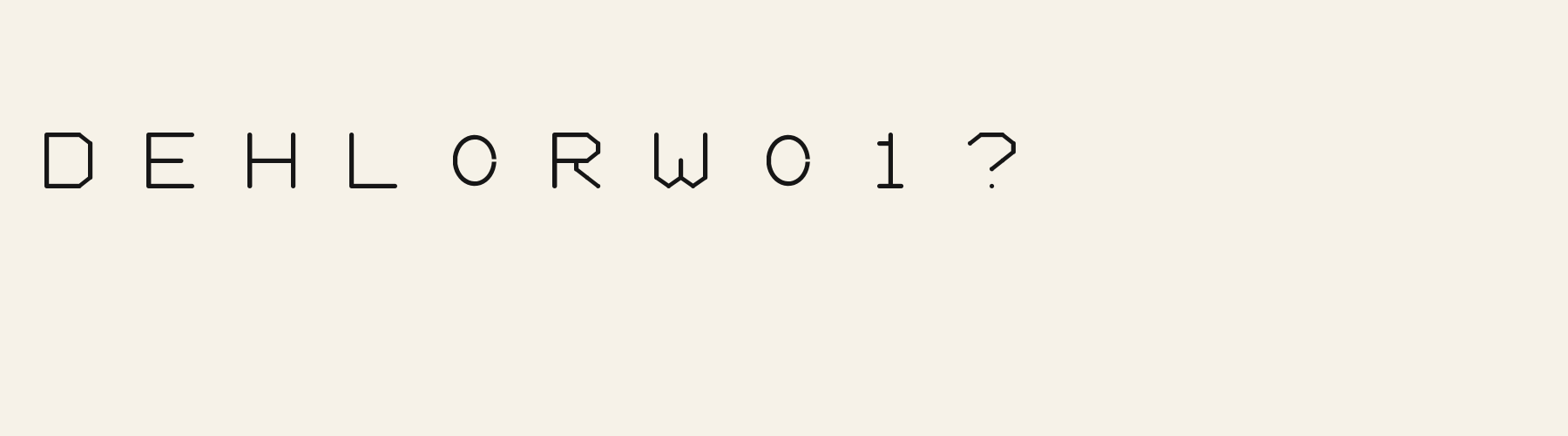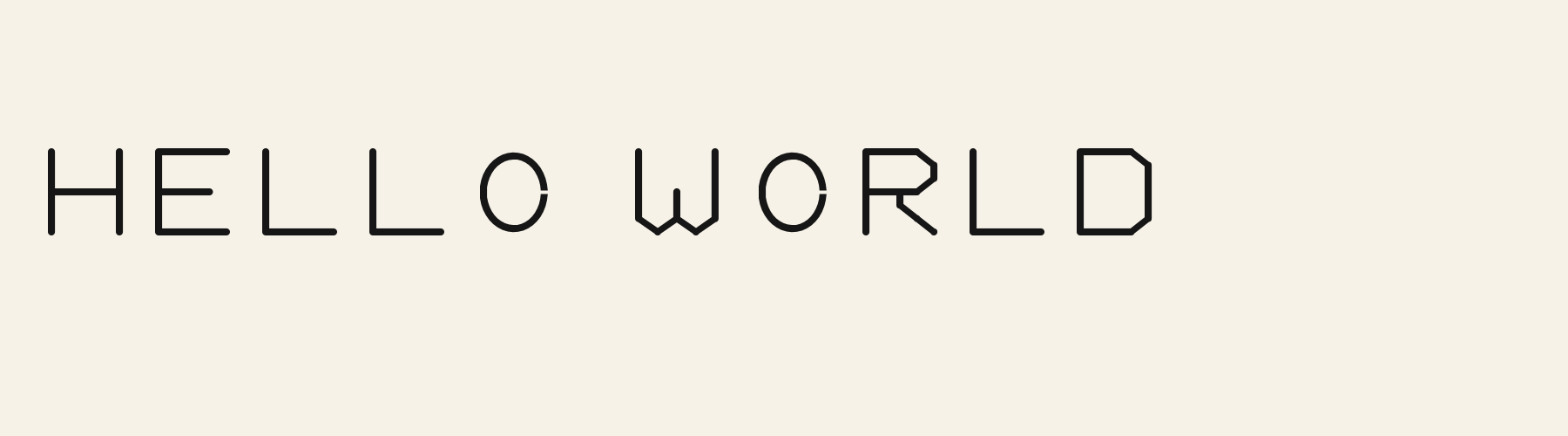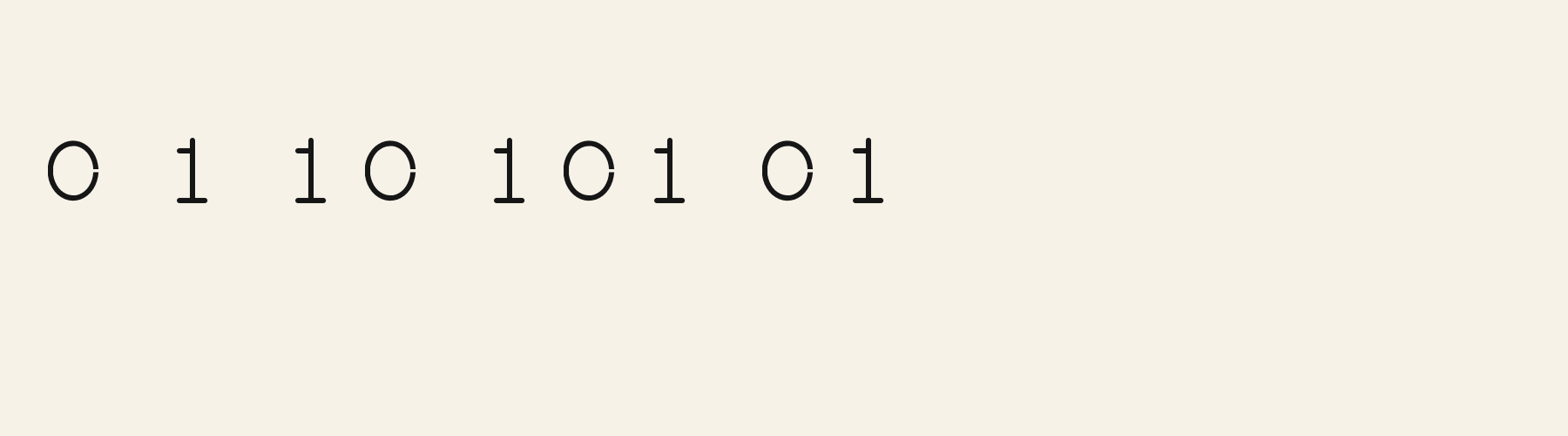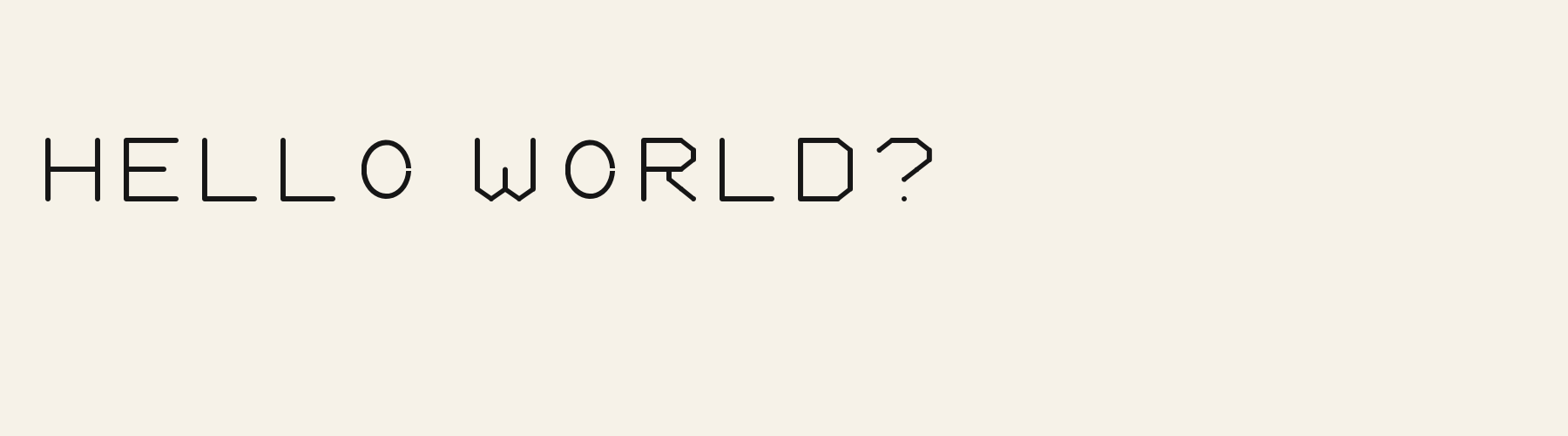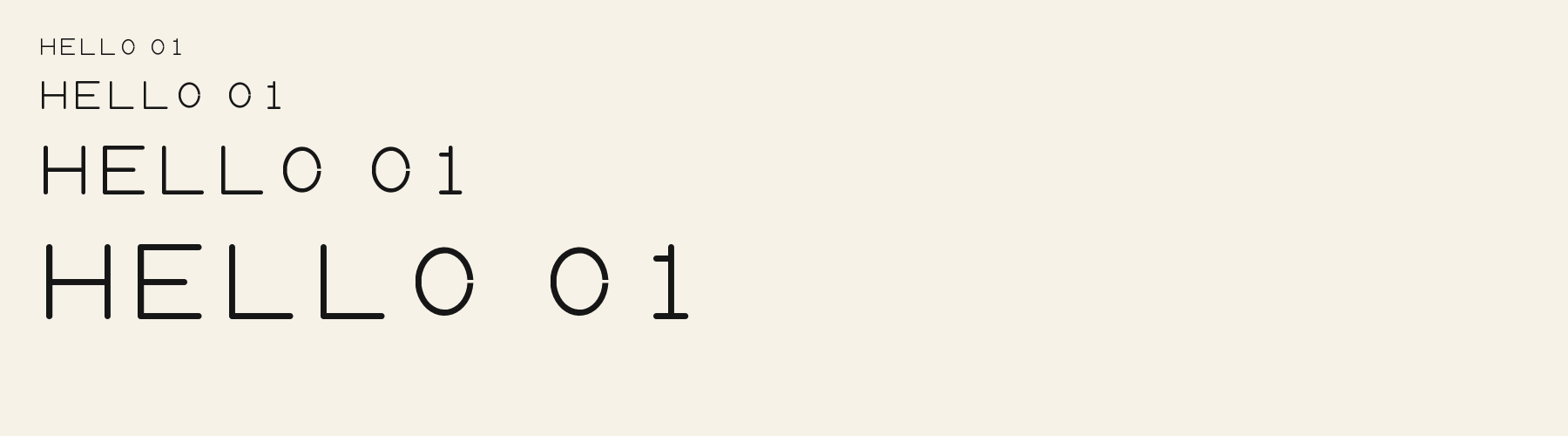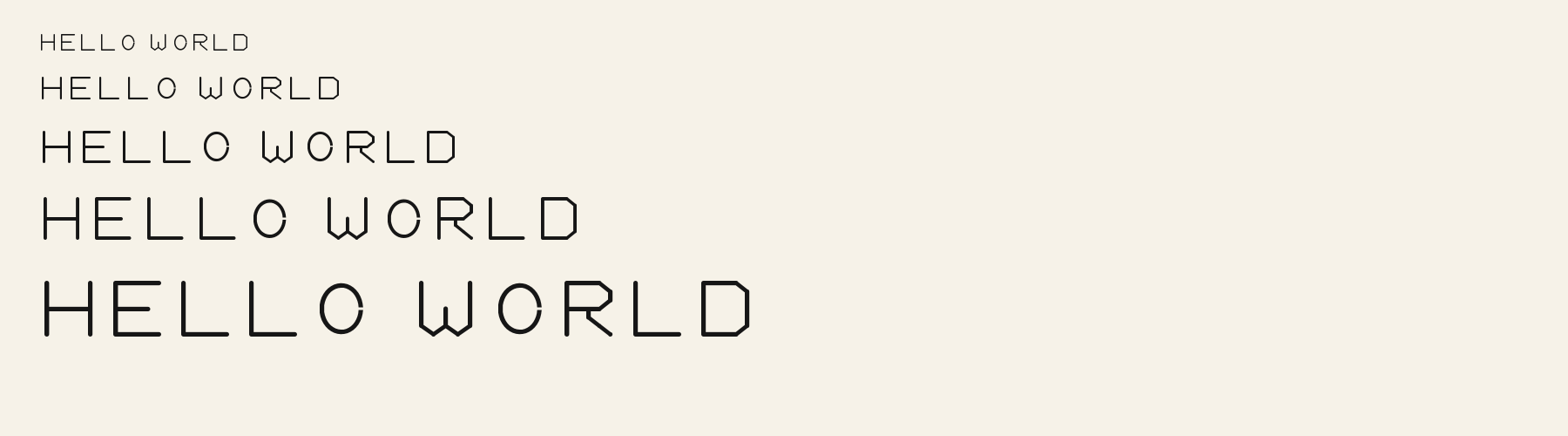
Geo Circle Open Split Ring Monoline Font
Geo Circle Open combines light, even strokes with generous spacing and a mixture of rounded and angular shapes.
Split Ring Monoline Letterforms
Geo Circle Open combines light, even strokes with generous spacing and a mixture of rounded and angular shapes. The O forms an almost complete ring, interrupted by a fine gap at the right midpoint. The R has a flat-topped bowl with clipped outer corners and a diagonal leg that starts beneath a short vertical drop. The W folds into angular valleys around a short central upright, giving it a distinctive silhouette. Rounded stroke ends soften the otherwise precise construction. Across a short phrase, the broad proportions and open white space give the lettering a calm, airy, slightly technical mood.
Inspect the fine gaps in Latin O, the angular joins in W and R, and the spaces around repeated L shapes in your wording. Check lowercase and accented letters separately; Arabic joining and vowel signs need their own preview, since these specimens show Latin capitals.
Try this face for a short heading or product name, with a compact, sturdier sans for descriptions and small labels. Its thin strokes and spacious capitals create a clear contrast with denser supporting text; preview the combination in your actual layout.
Geo Circle Open: letterforms and layout
Compare the original spacing with a wider setting. The repeated L shapes already leave generous white space, while the rounded O and angular W create different visual rhythms; extra tracking may spread the phrase too far apart.
Geo Circle Open gives O a nearly continuous outline with a narrow break at the right midpoint. Its rounded stroke ends soften the straight letters, creating a light, spacious phrase with a restrained interruption.
Geo Diagonal Aperture gives O a much larger opening toward the upper right, with angled ends that make the interruption conspicuous. Its straighter letters also appear heavier and more square-ended in the supplied specimens.
Product label. Light strokes and generous white space give a short product name a quiet presence with room around each letter. FORM AND SPACE
Poster. Broad letters and the split O give a spare poster heading a clear geometric motif to build around. LOW ORBIT
Logo or badge. The folded W and nearly closed O bring distinctive silhouettes to a compact wordmark with only a few letters.
Its lowercase sits low: the x-height is 69.4% of the cap height, where the median for sans serif fonts is 71.4%, lower than 28 of the 34 other sans serif fonts. Ascenders on b, d, h, k and l line up with the capitals (100% of their height), and descenders on g, j, p, q and y drop 30.6% of the cap height below the baseline, deeper than 31 of the 34 other sans serif fonts. Geo Circle Open runs 55% wider than the median for sans serif fonts: an average lowercase letter, spacing included, is 121.4% as wide as the capitals are tall (an average capital, 122.2%). The o is wider than it is tall, 1.27 to 1, and M and W are the widest capitals, at 1.12 times the width of H. The O stops 4.1% of the cap height short of H and stands 4.1% above the baseline.
The letters stand upright, leaning less than 2.5° either way. Vertical stems measure 8.1% of the cap height, lighter than 23 of the 28 other sans serif fonts. Ink covers 15% of each lowercase letter's box (its advance width by the cap height), the lightest of all 35 sans serif fonts.
Its 332 characters include 161 Arabic and 116 Latin letters, plus 55 figures, punctuation marks and symbols; 64 of the Latin letters are accented or special forms beyond A to Z. The word space measures 59.2% of the cap height, and the blank space either side of a lowercase letter takes up 34.1% of its width. The font carries no kerning, so spacing comes from each letter’s own side bearings. Its OpenType tables also hold Arabic joining forms (init, medi, fina) and mark positioning for accents and vowel signs (mark, mkmk). All ten figures share one width, so columns of numbers line up.
- In the same sans serif style: Ion Hairline (17% narrower, heavier strokes); Halo Light (41% narrower, taller x-height); Geo Diagonal Aperture (6% narrower).